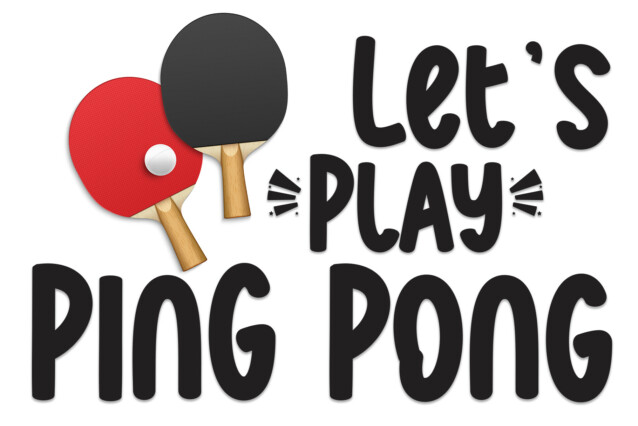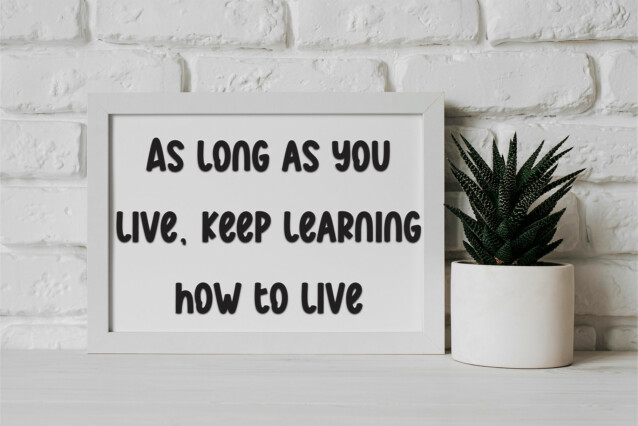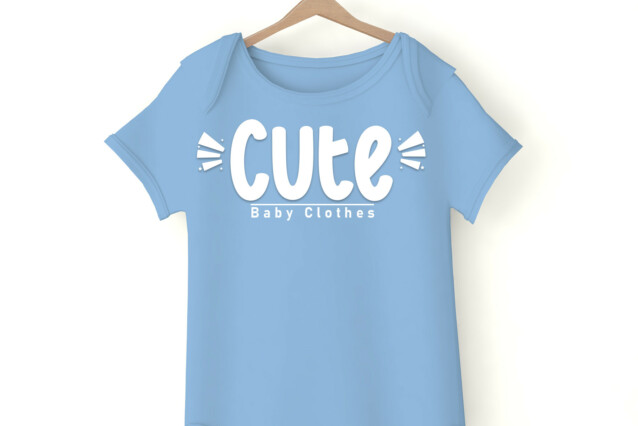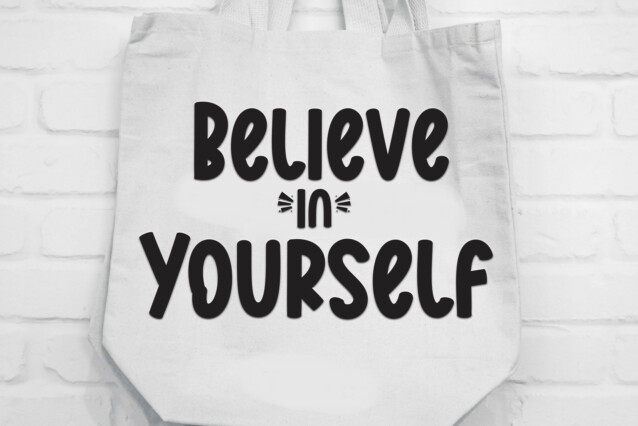
Official Day Display Font
Official Day Display Font is a magical script font carefully created with a touch of elegance. Whether you’re looking for fonts for Instagram or calligraphy scripts for DIY projects, this font will turn any creative idea into a true piece of art!